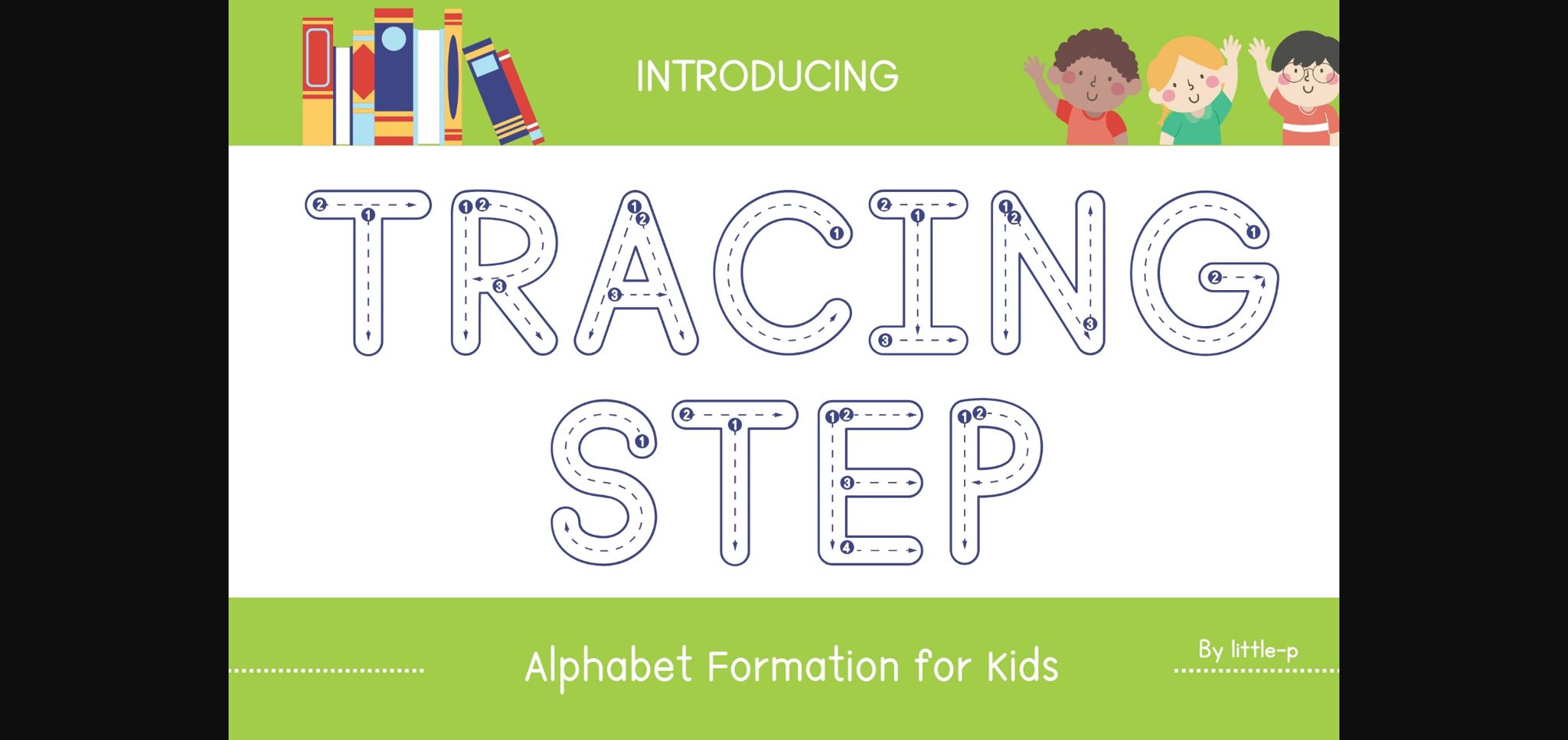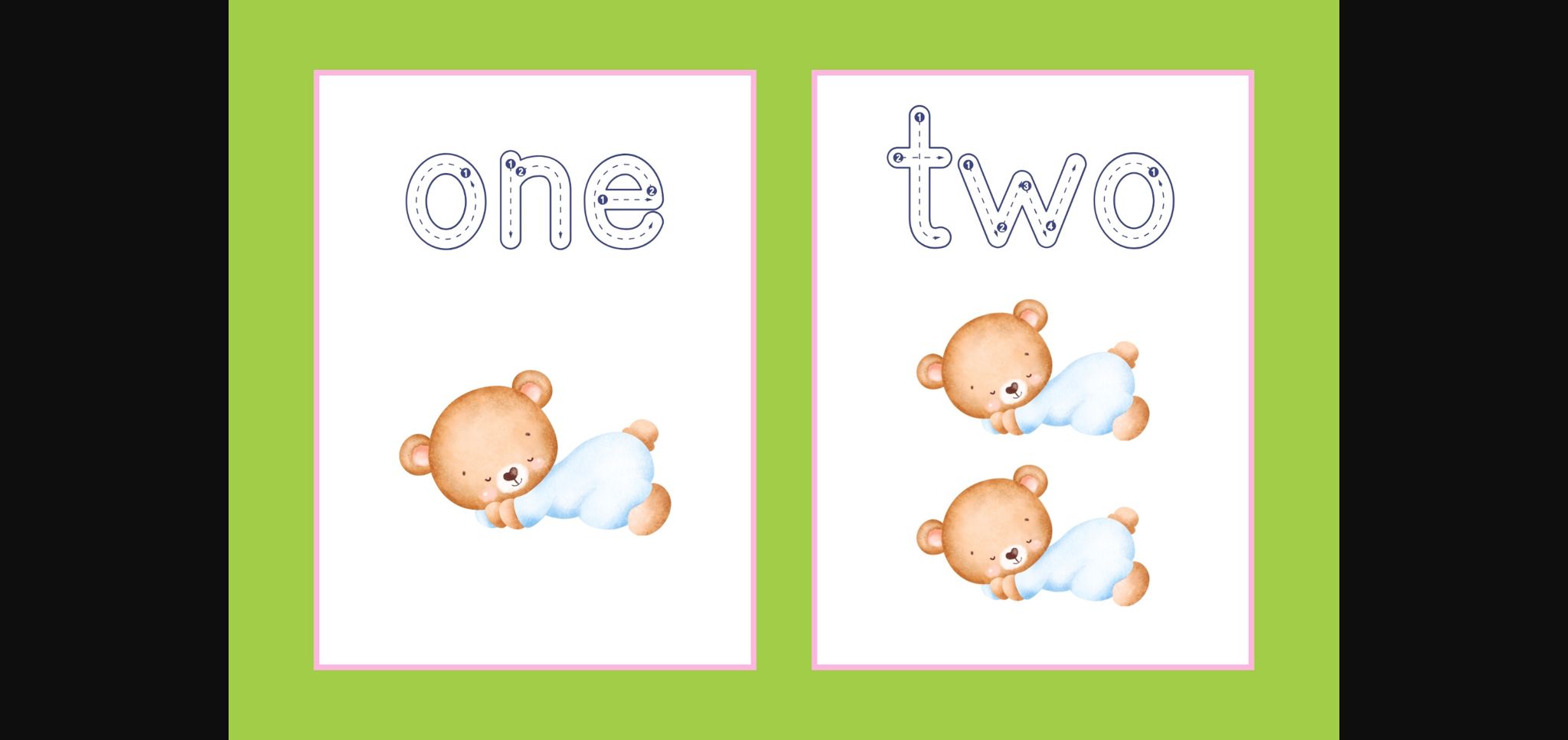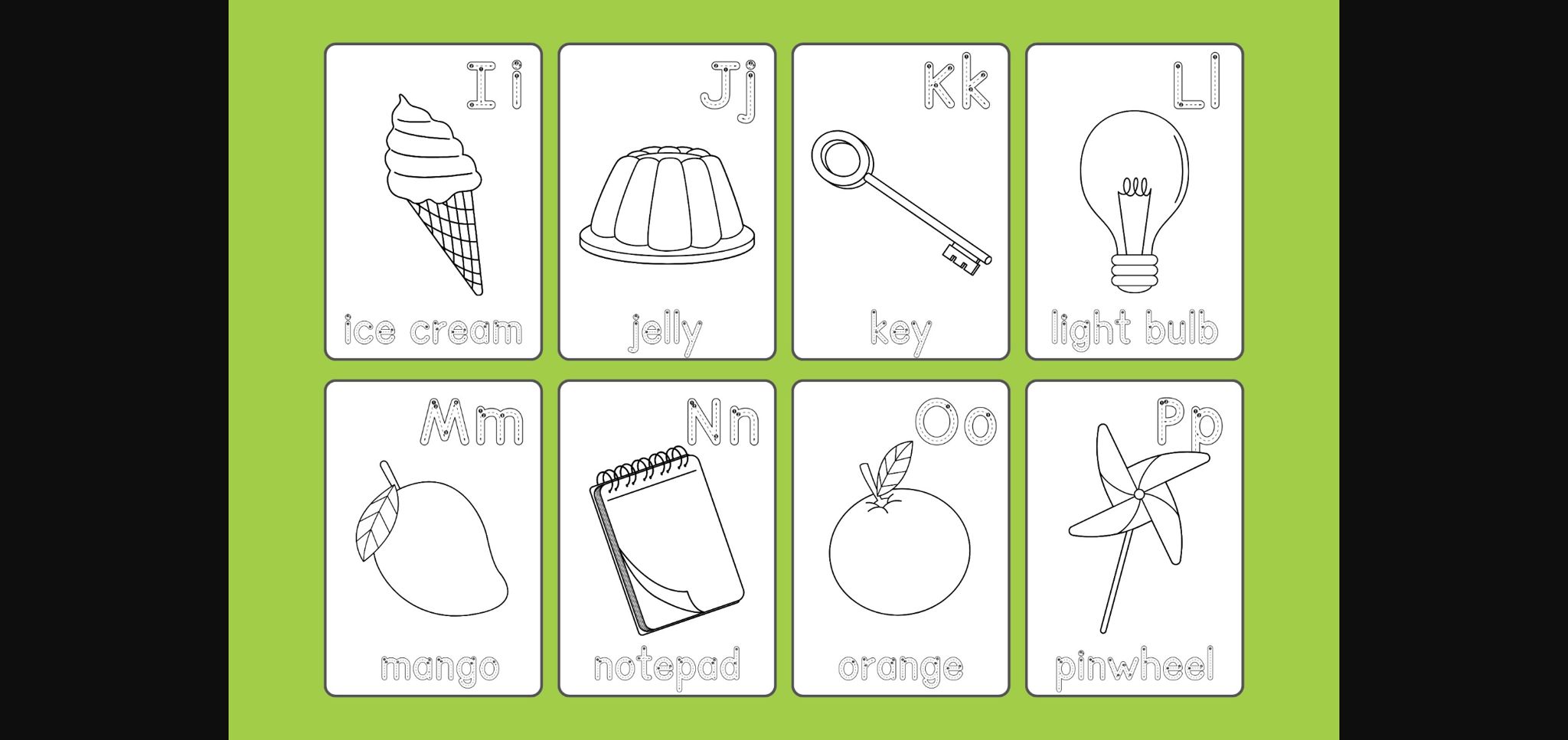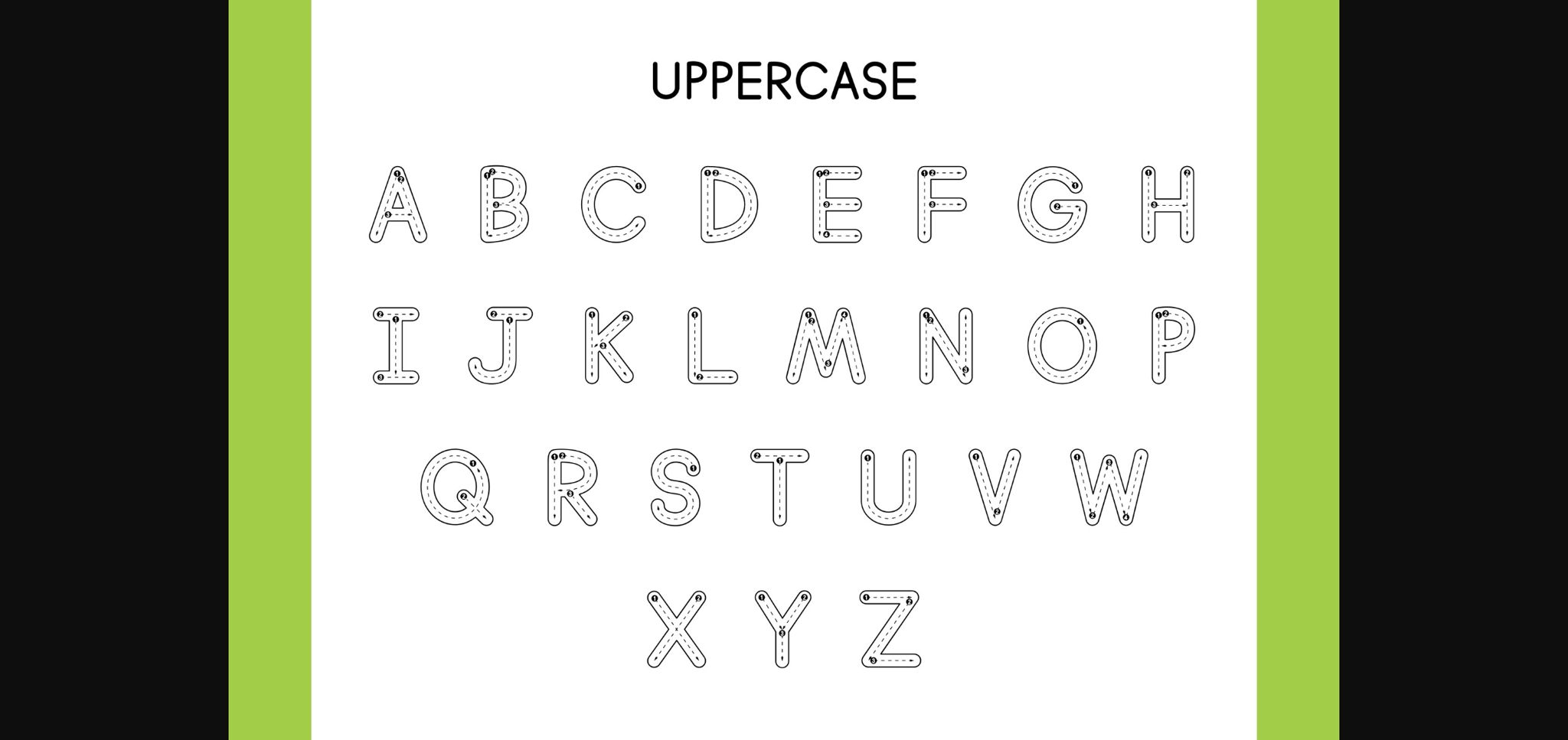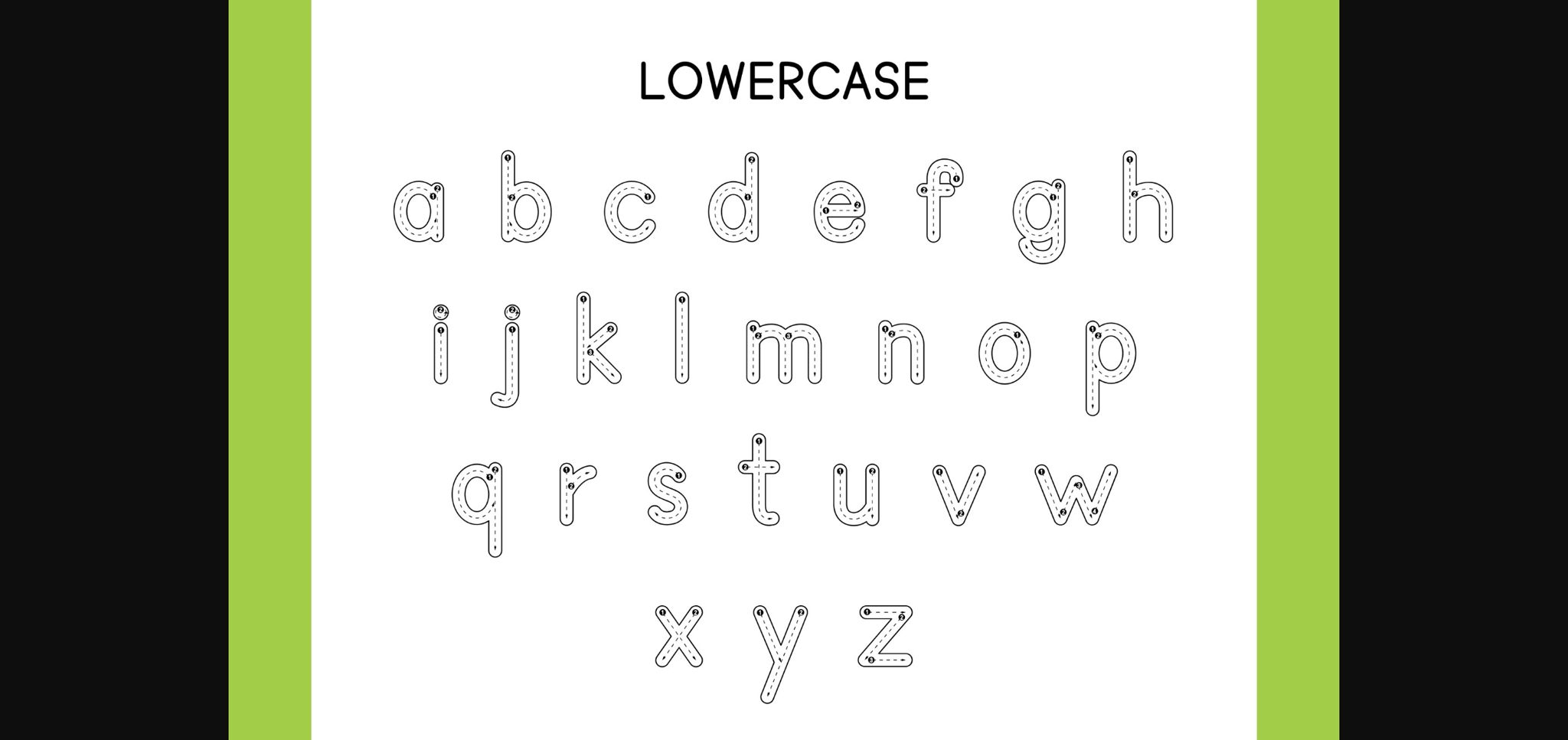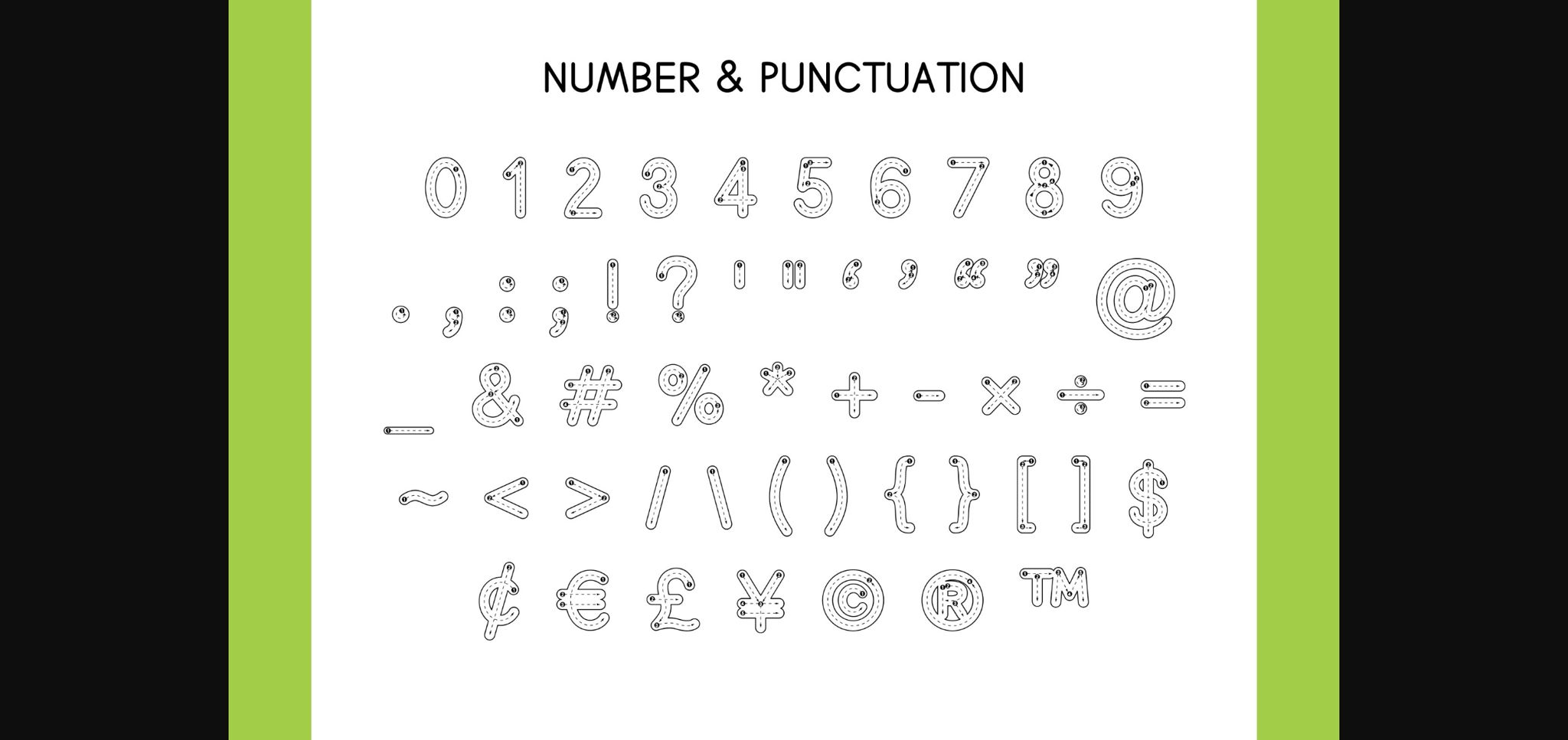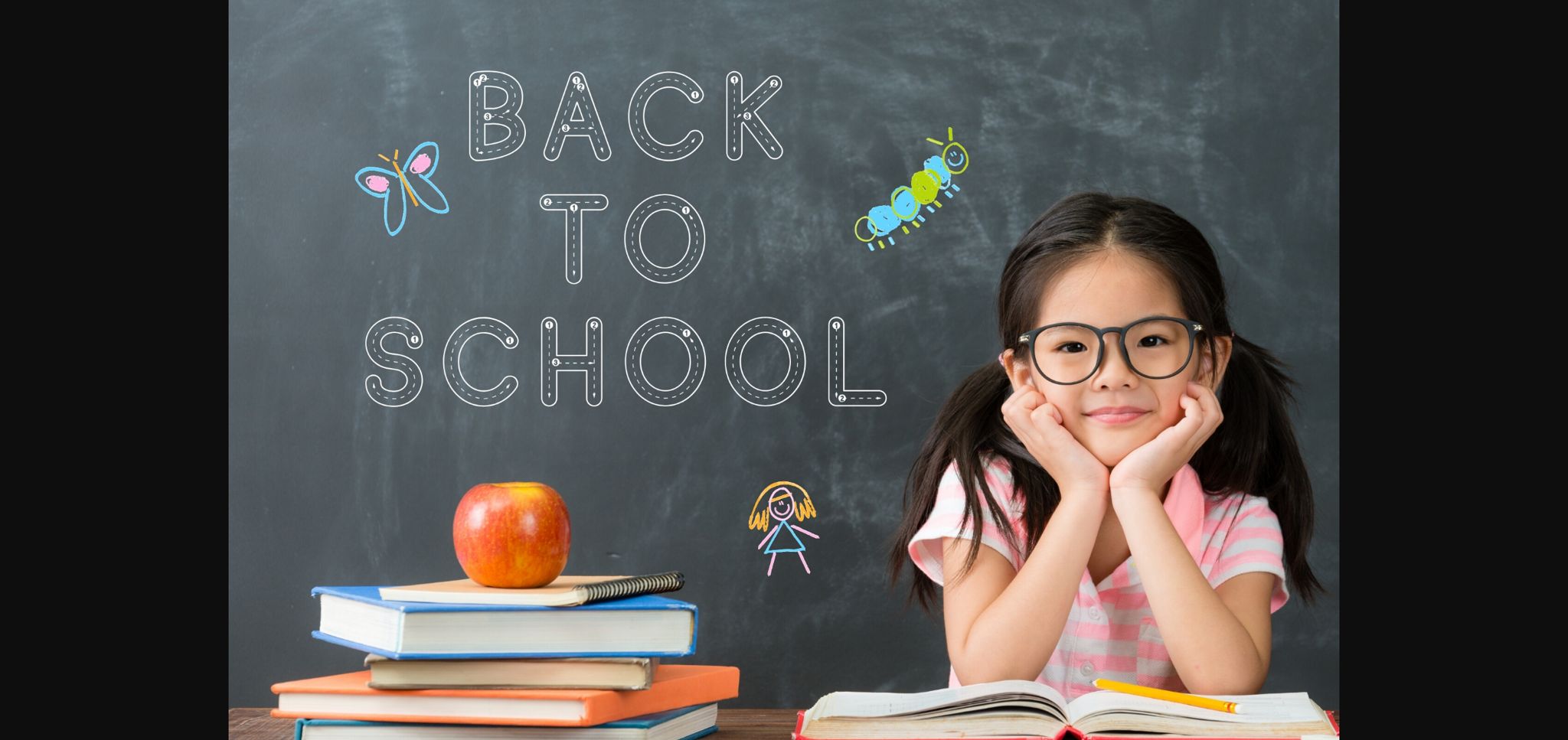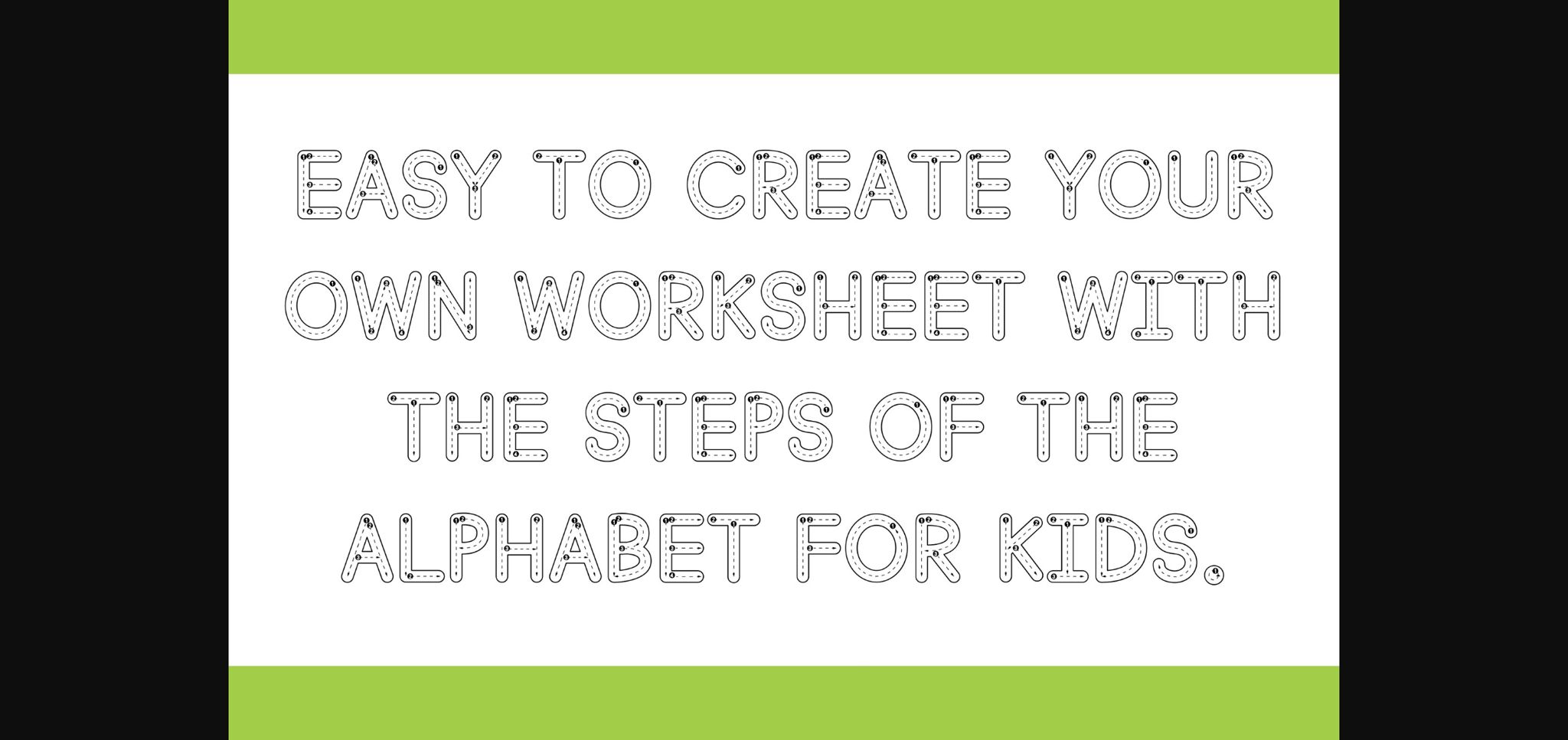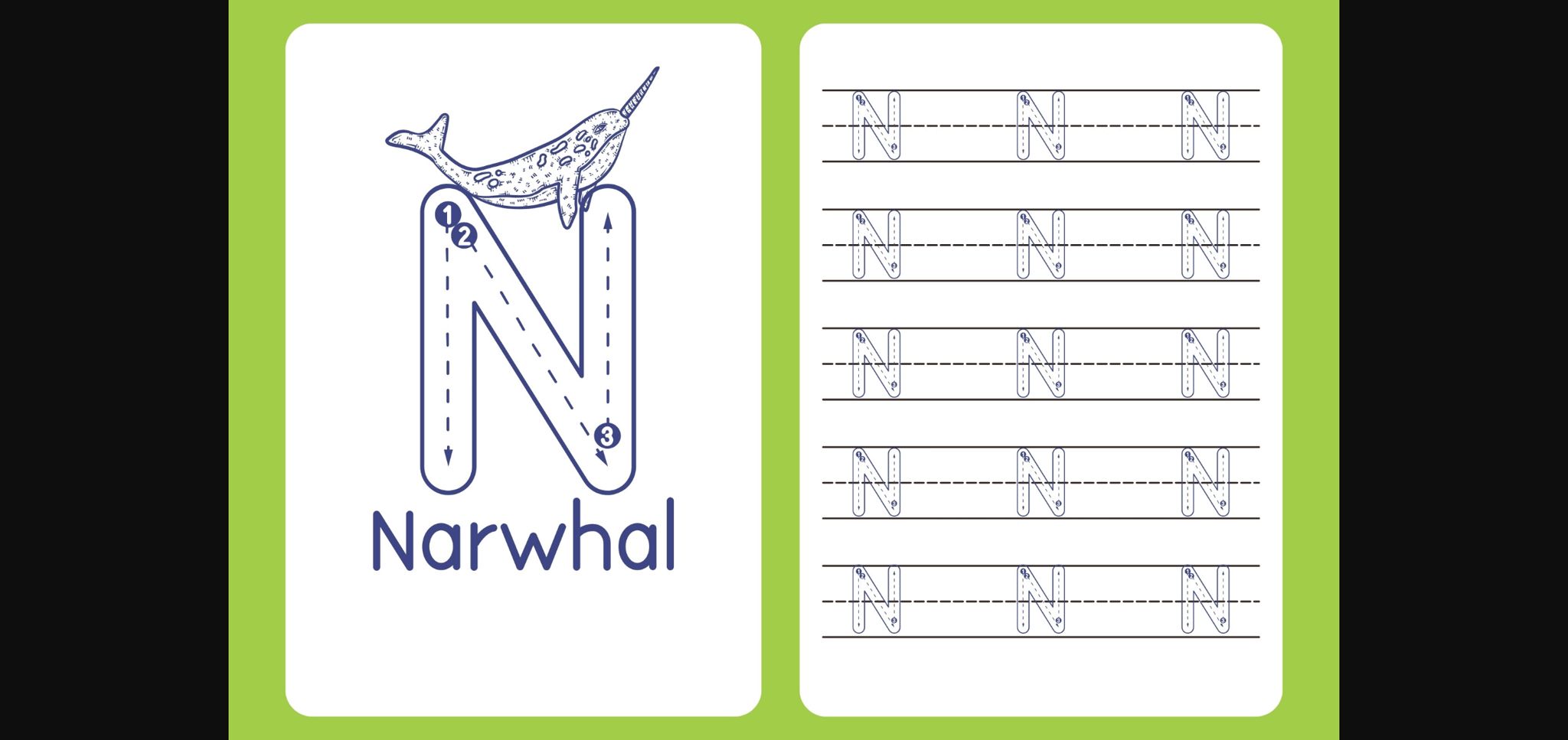
Tracing Step Font
About Tracing Step Font
“Tracing Step” is the ultimate companion for budding learners, designed to guide and instruct with ease. Featuring numbered steps that meticulously outline the process for drawing lines and arrows indicating direction, this font simplifies learning to the core. Tailored for students, kindergarteners, and elementary learners, “Tracing Step” transforms study sessions, worksheets, and learning materials into engaging experiences. Whether utilized in traditional classrooms or homeschooling settings, this font facilitates practice writing and the creation of custom worksheets, ensuring a seamless and effective learning journey for all.